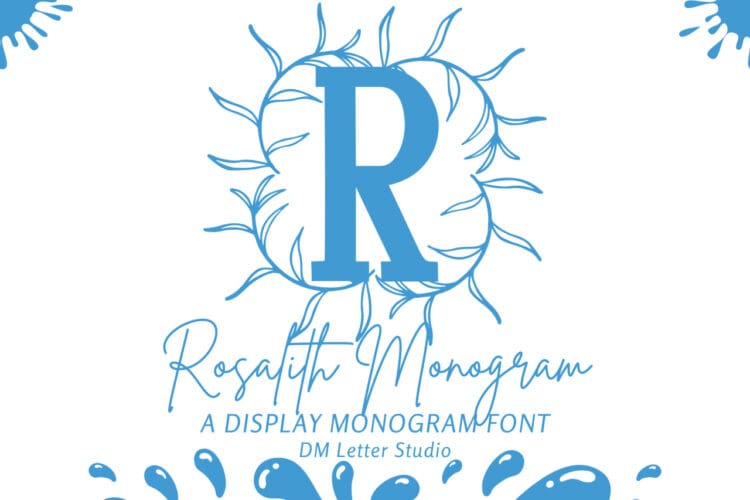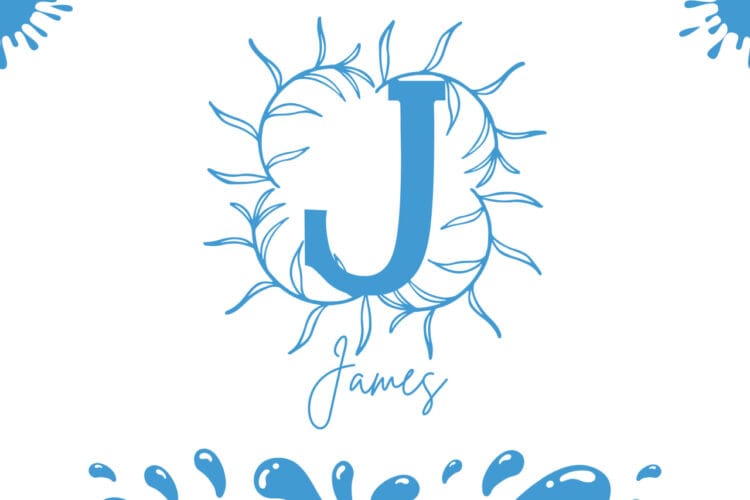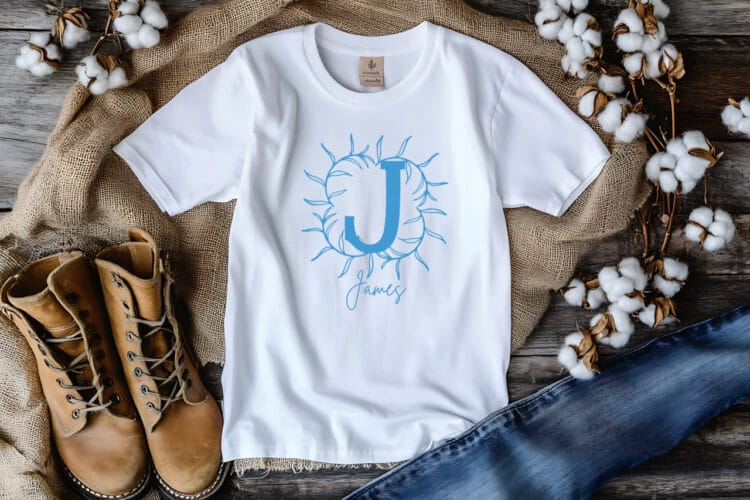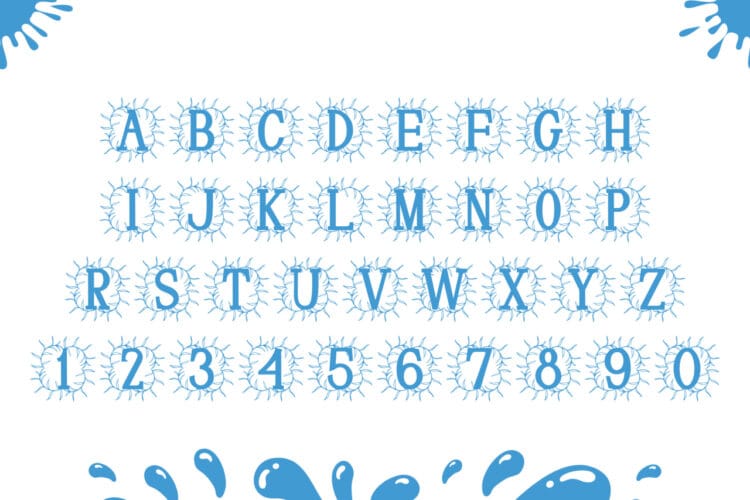
Meet Rosalith Monogram Font
Rosalith Monogram turns initials into refined floral emblems with a romantic, slightly classic character. Inspired by rose forms and soft ornamental balance, the design feels elegant without becoming heavy or ornate. Each letter is carefully shaped to stay clear at any size, so small tags remain readable while larger designs feel graceful and premium. Use Rosalith for weddings, anniversaries, boutique branding, stationery, keepsake gifts, and luxury packaging. As a result, your designs feel timeless, warm, and thoughtfully detailed.
Why Rosalith Monogram sells
Fast layouts with the Rosalith Monogram Font
Start with a central initial and let the floral form frame it naturally. After that, add names or dates using a soft serif or clean sans serif. Because Rosalith holds its shape at small sizes, labels, stickers, cards, and tags stay crisp and balanced. In addition, it works beautifully with oval frames, wreath accents, thin dividers, and subtle floral details. Finally, save color palettes like blush and ivory, antique rose and linen, sage and cream, or charcoal and soft gold to reuse across product lines.
Creative uses and quick wins
Wedding monograms, invitation covers, and save-the-date cards
Logo seals, certificates, and boutique brand marks
Gift tags, stickers, and keepsake packaging
Labels for candles, perfume, skincare, soap, and handmade goods
Design tips for Rosalith Monogram Font